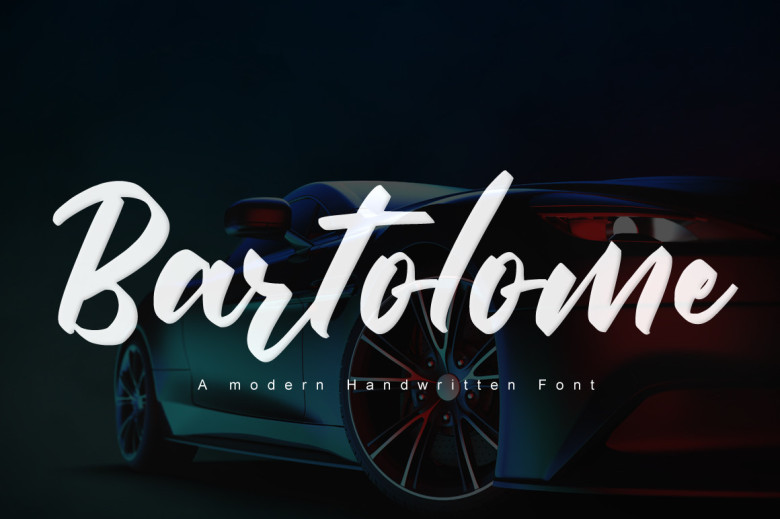
Bartolome Font
Bartolome is an exquisite handwritten font designed to add an eye-catching and classic charm to headlines and logotypes alike. Bold yet confident and lively in tone, Bartolome will breathe new life into any layout with its nostalgic charm.
Bartolome Handwritten Script Font